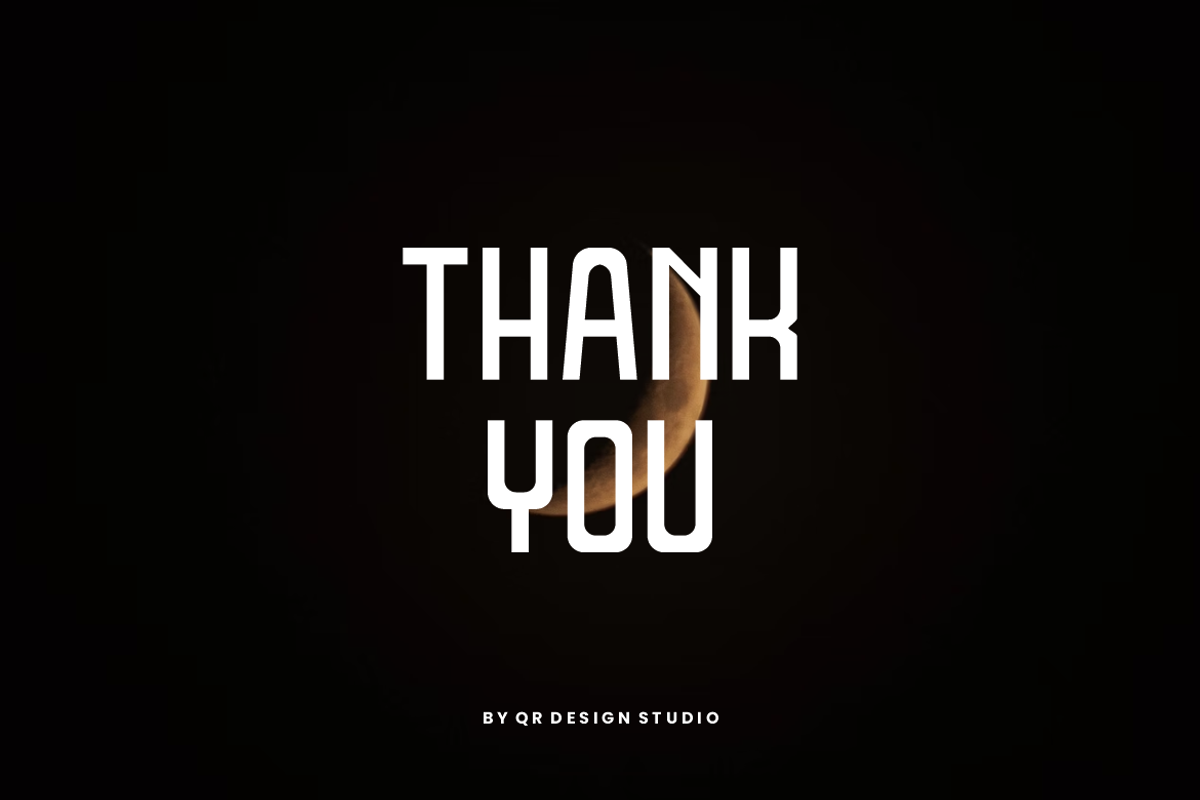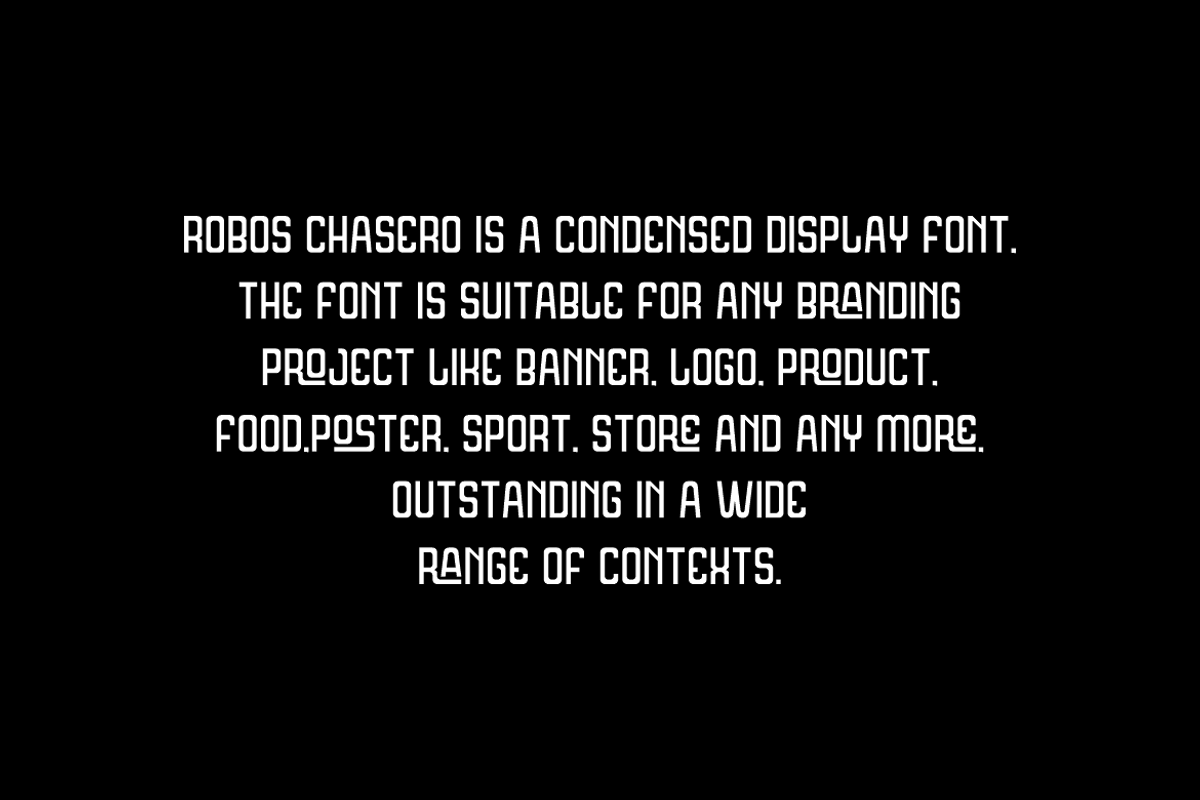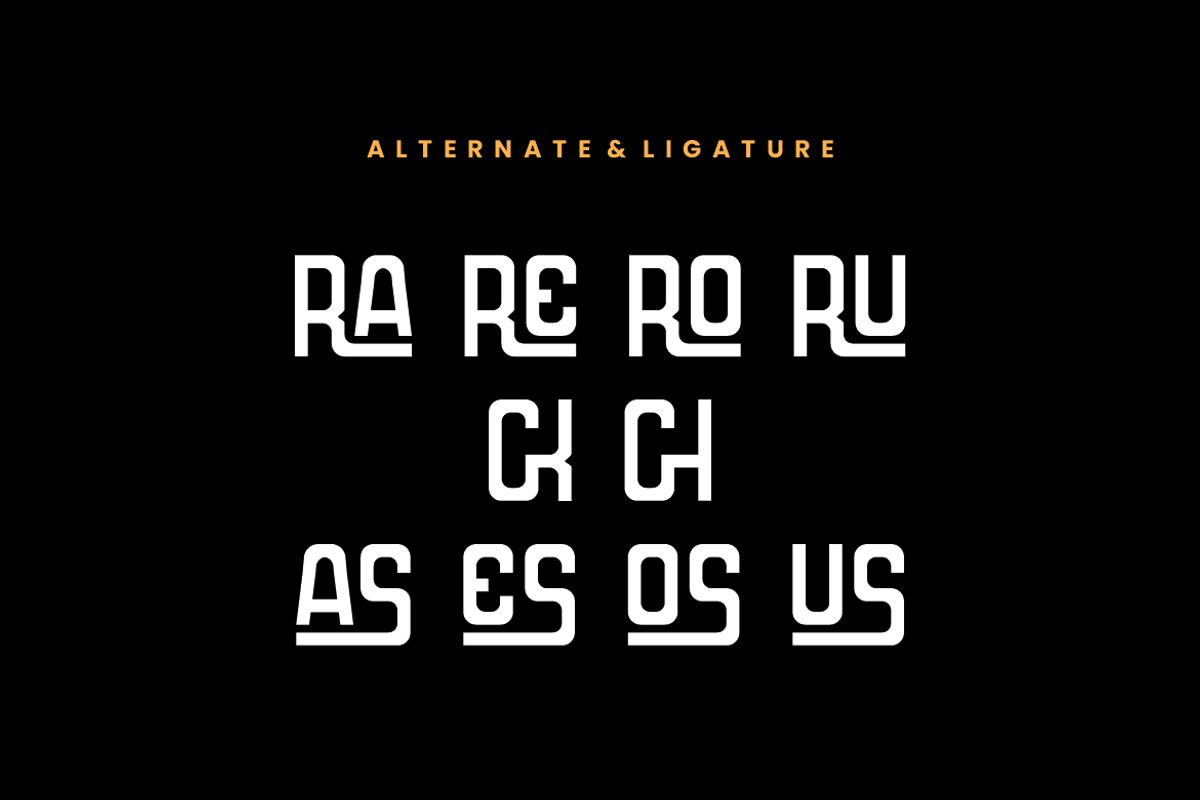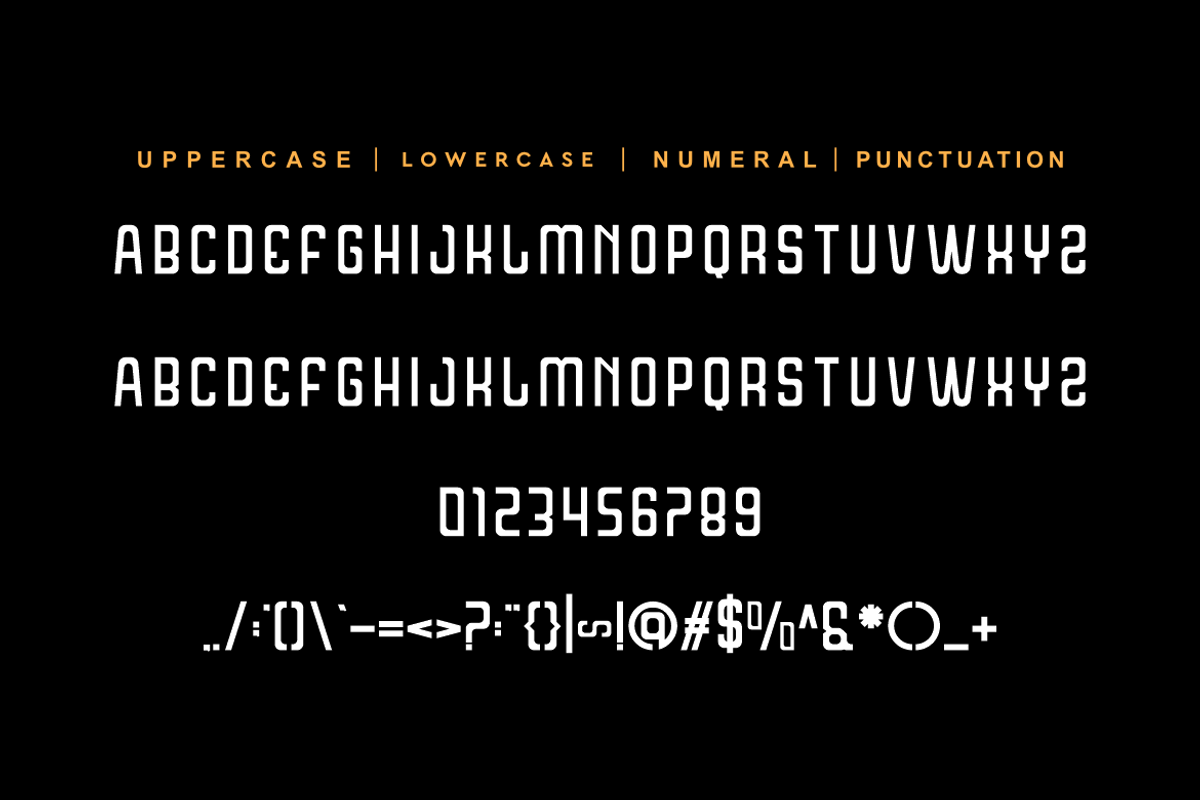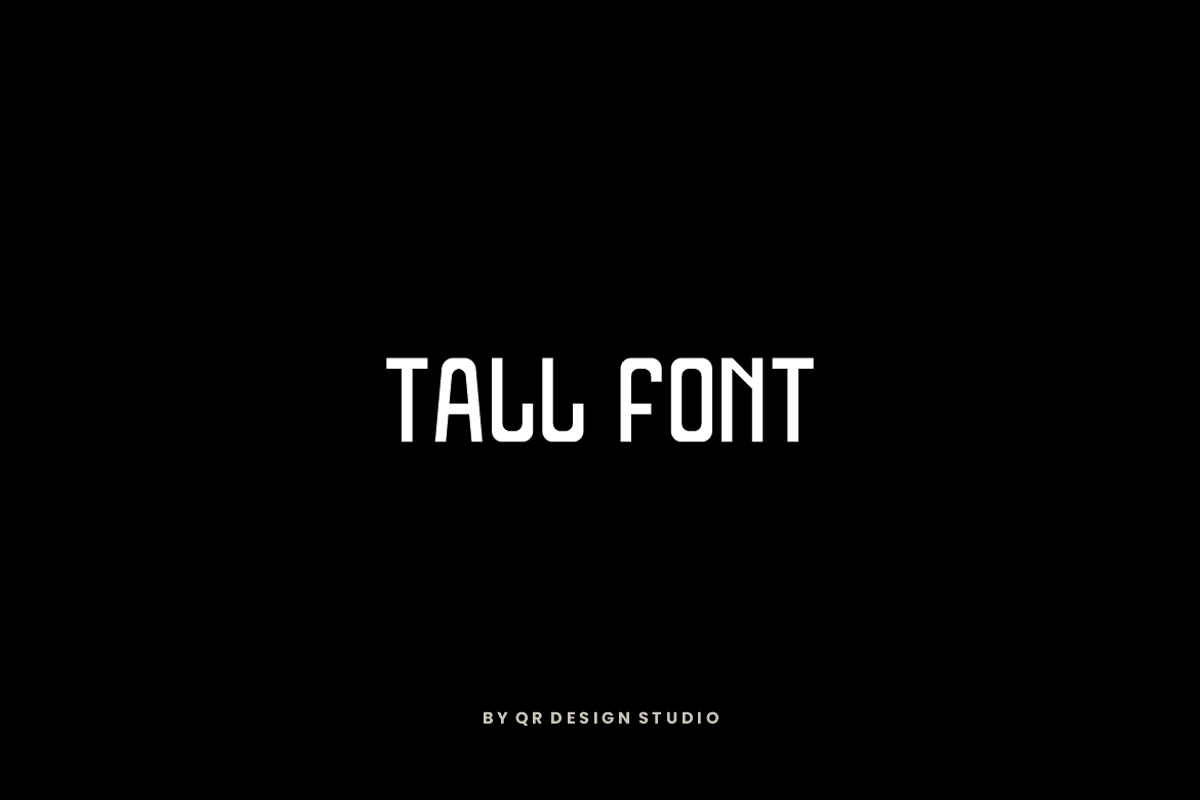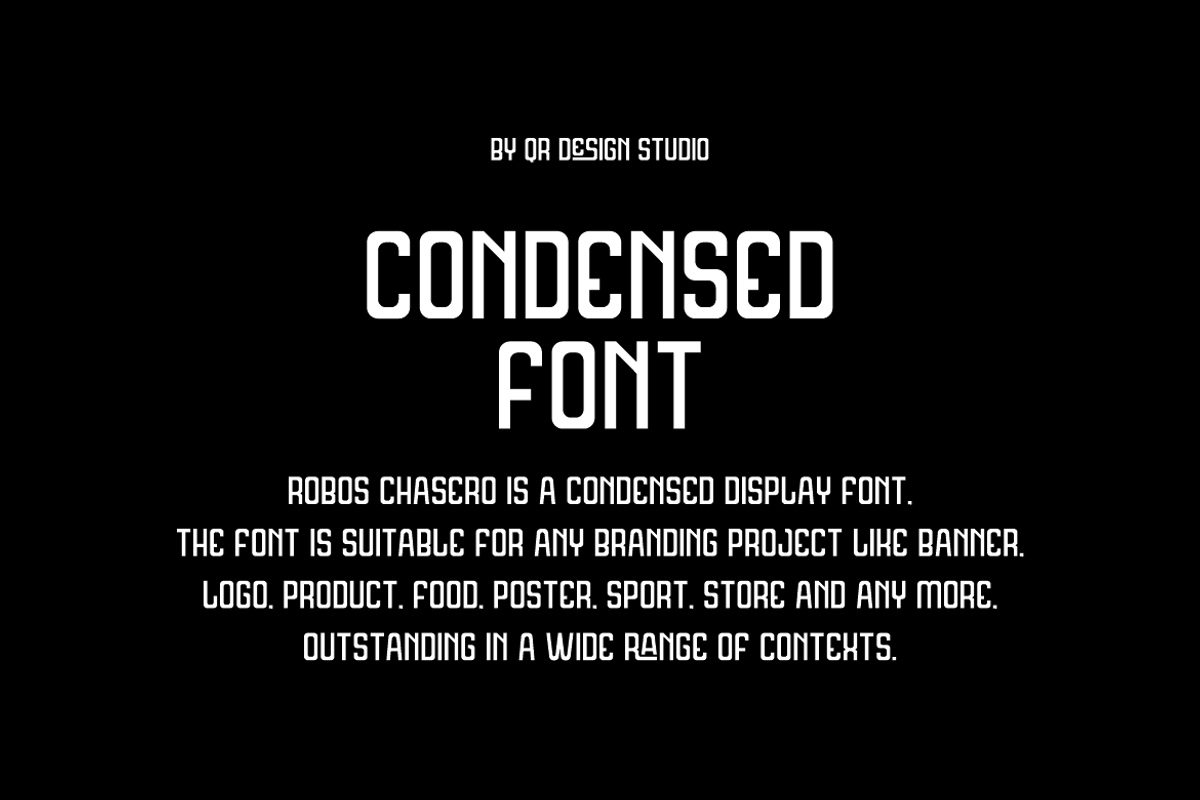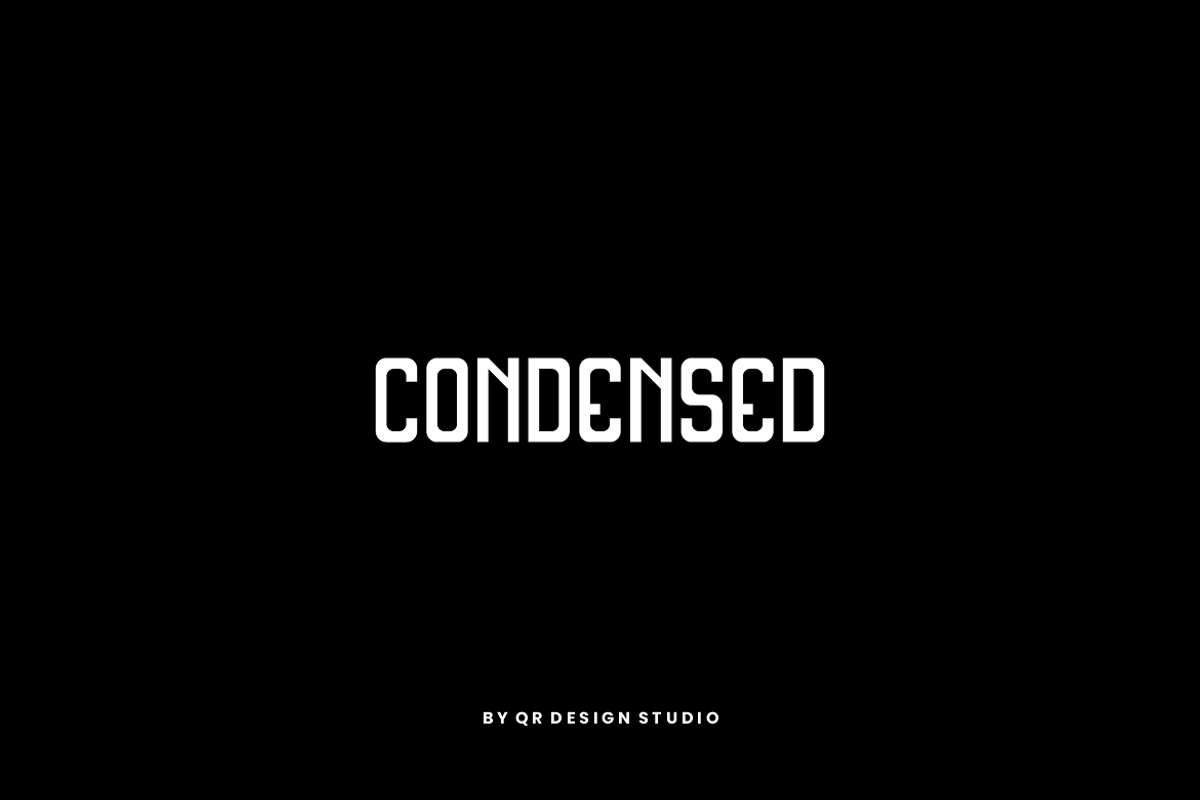
Robos Chasero Tall & Condensed Font
Robos Chasero Font is a bold and authentic display font. The font is suitable for any branding project like poster, logo, sport, and many more. Outstanding in a wide range of contexts.
Robos Chasero Tall & Condensed Font by QR Design Studio fits naturally into Branding, posters, packaging, typography.